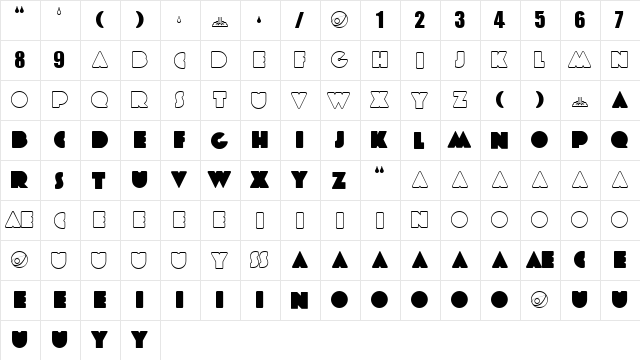
ETIAW Every Truetype is a Wisefont
Design Context for ETIAW Typeface
ETIAW is a composed and adaptable typeface that performs quietly and consistently across a wide range of design contexts.